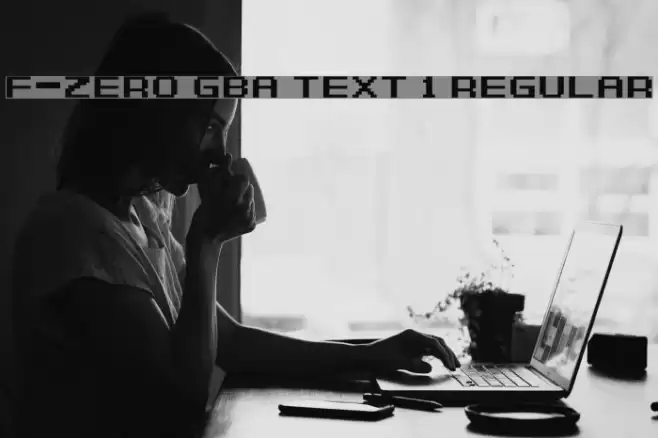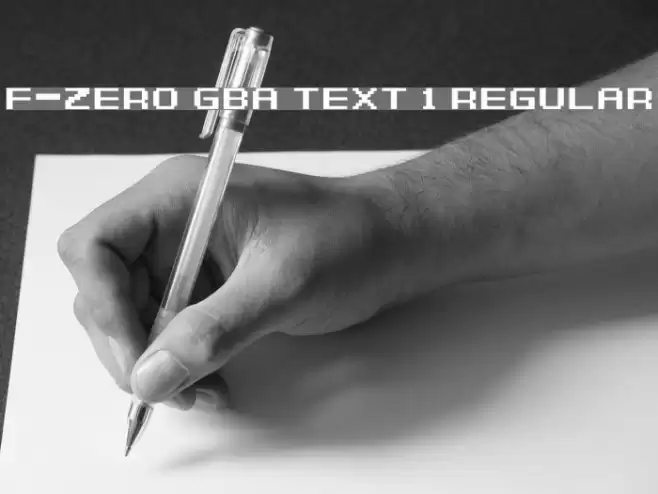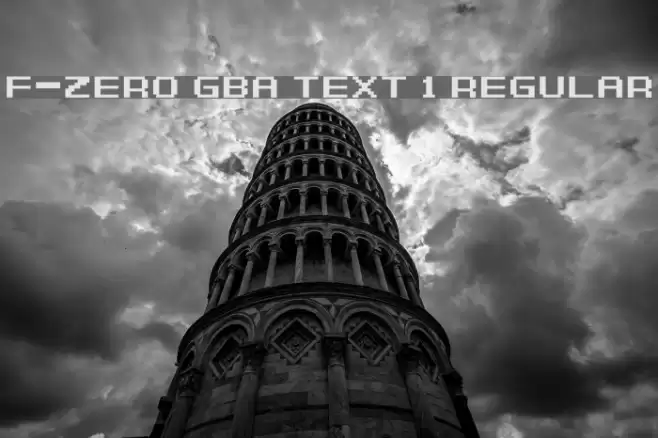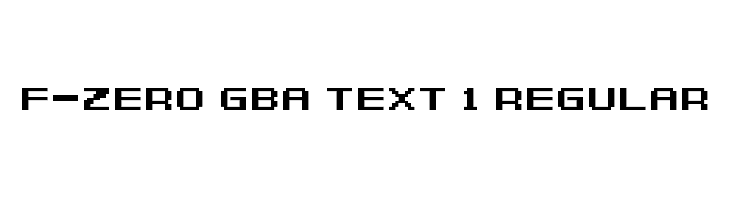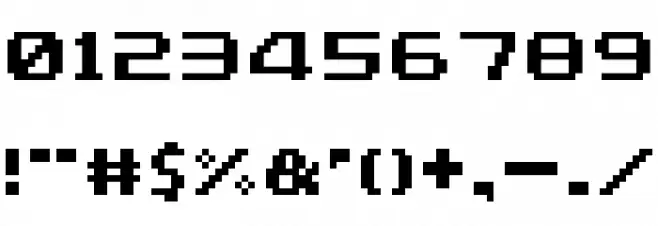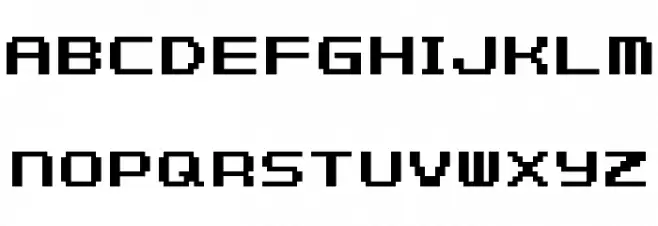
F-Zero GBA Text 1 Regular Font
F-Zero GBA Text 1 Regular Description
This font features a pixelated, blocky design reminiscent of classic video game aesthetics. Each character is constructed with a grid-like precision, giving it a retro and digital feel. The uppercase and lowercase letters maintain a uniform height, enhancing the font's geometric appearance. Numbers and special characters follow the same structured style, ensuring consistency across all glyphs. The font's simplicity and clarity make it highly legible, even at smaller sizes, while its distinct style adds a nostalgic touch to any design.
A pixelated, retro-style font with a blocky, digital appearance from Uncategorized fonts.
- Proposed Projects: Ideal for video game designs, retro-themed posters, digital art, and any project seeking a nostalgic or tech-inspired look.
- Overall Style: Retro, Digital
- Use Case: Headlines, Logos, Digital Art